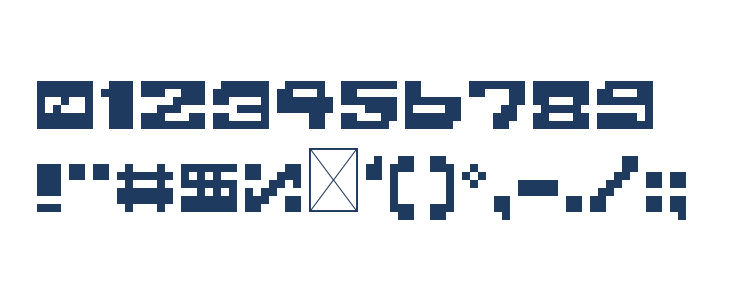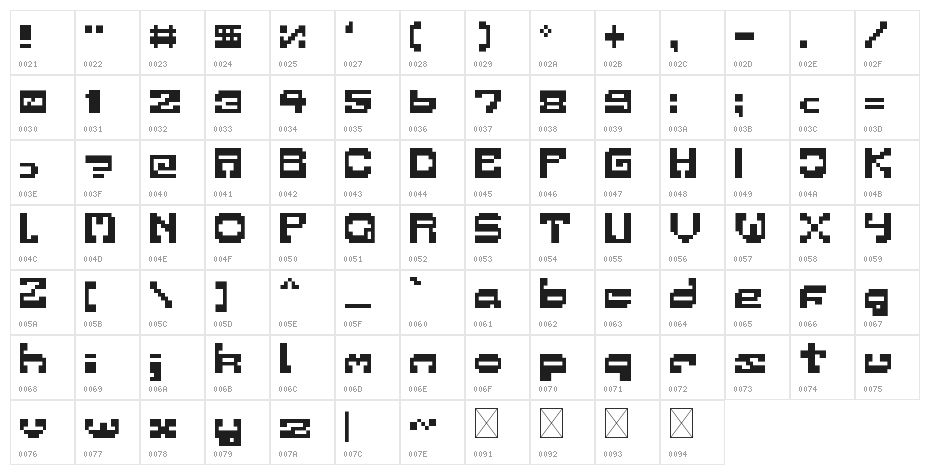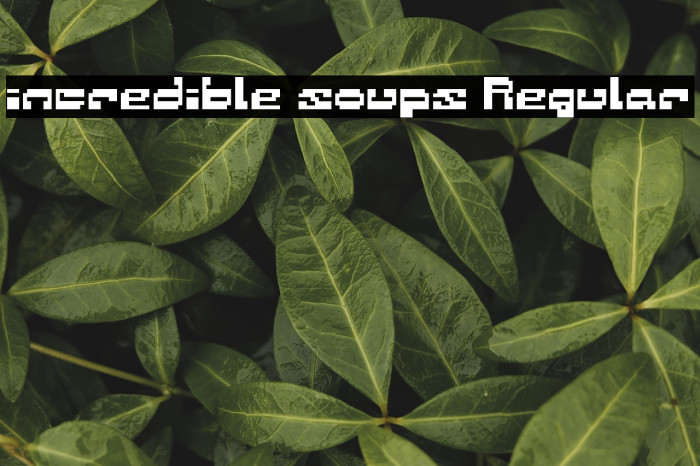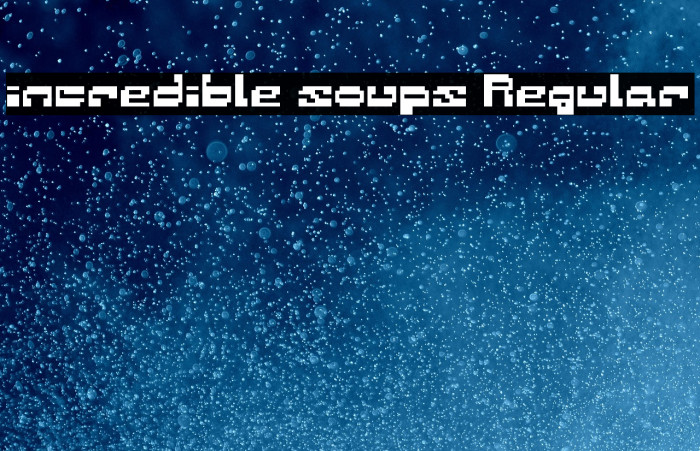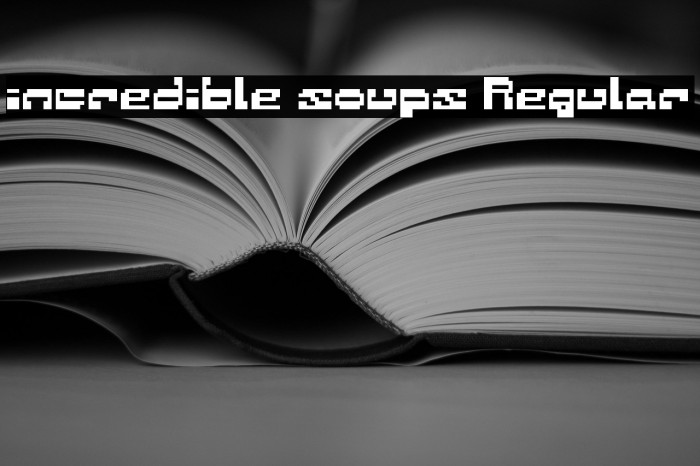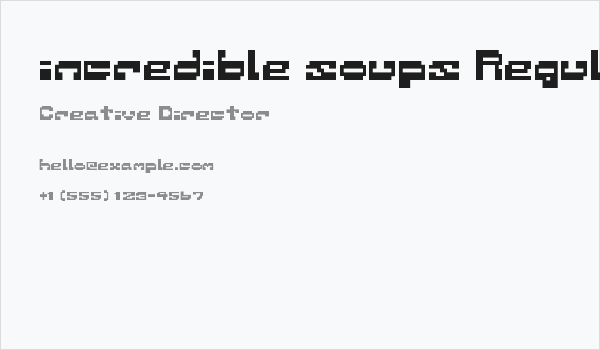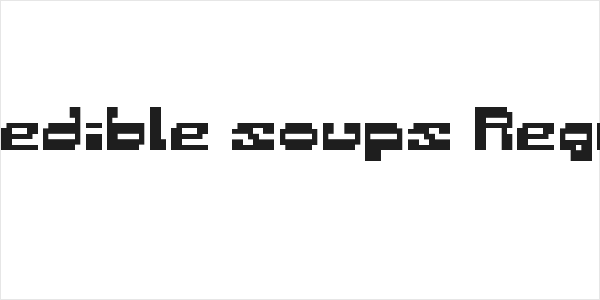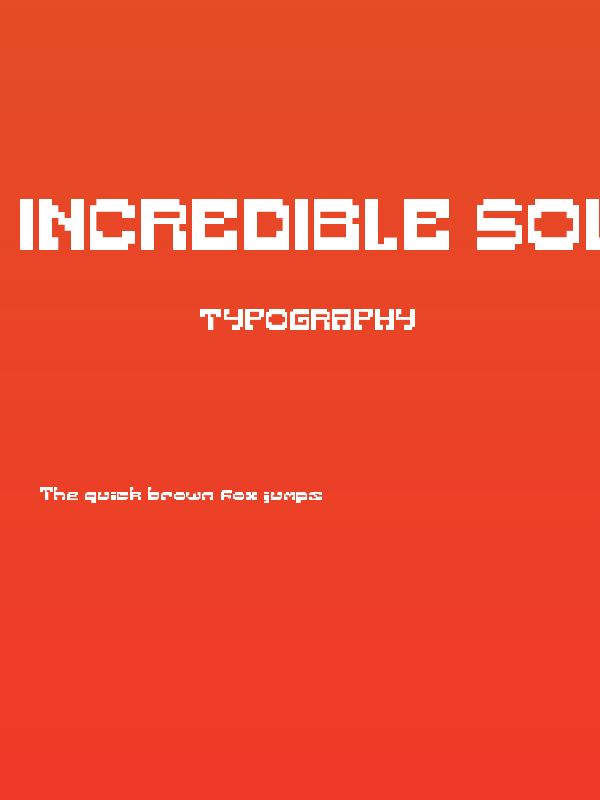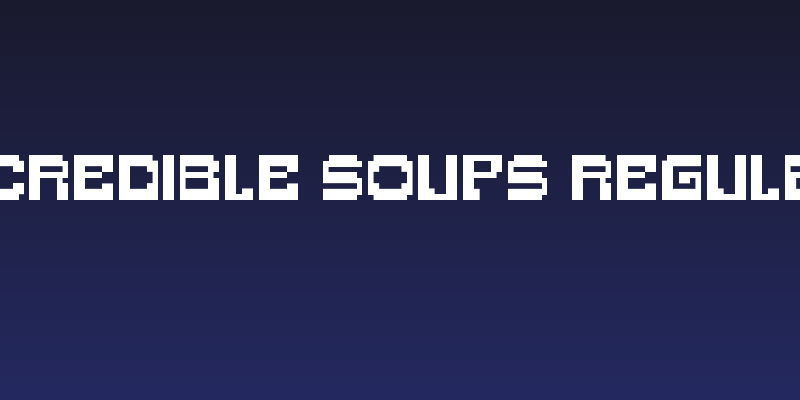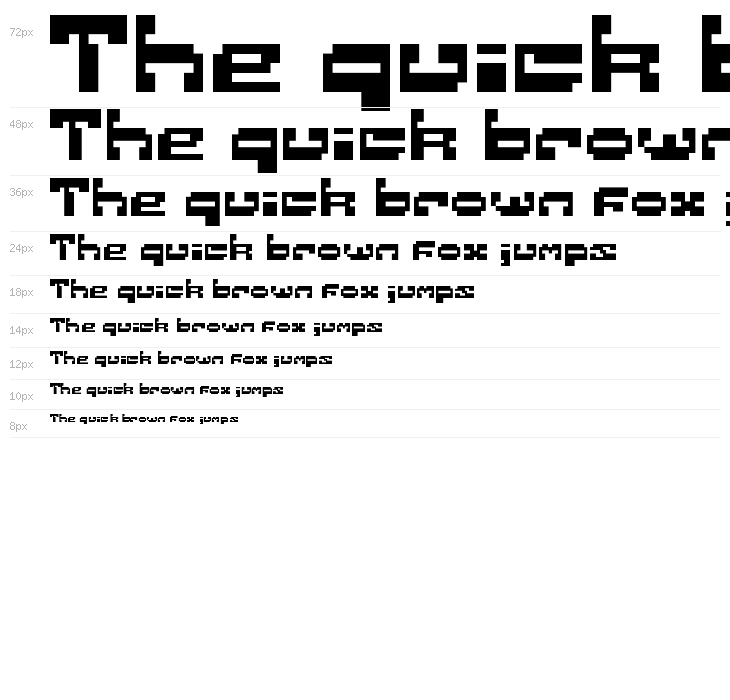
incredible soups Regular Font
incredible soups Regular Description
This font features a bold, pixelated design reminiscent of early digital typography. Each character is constructed with a blocky, geometric style, giving it a retro, video game-like appearance. The uppercase and lowercase letters maintain a consistent height, contributing to a uniform look. Numbers and special characters follow the same pixelated theme, ensuring cohesion across all text elements. The font's distinct, angular shapes make it highly legible even at smaller sizes, while its unique style adds a playful, nostalgic touch to any project.
| Overall Style | Retro |
| Proposed Projects | Ideal for video game design, retro-themed posters, digital art projects, and any creative work that seeks to evoke nostalgia for early computing. |